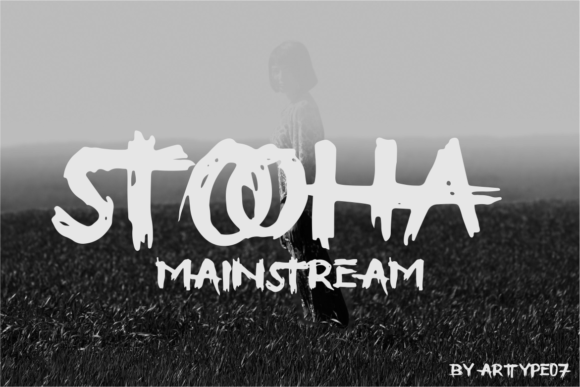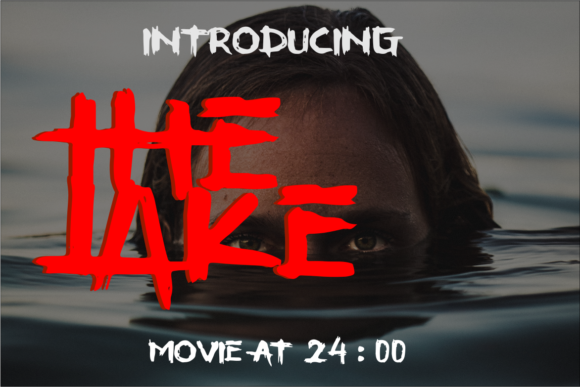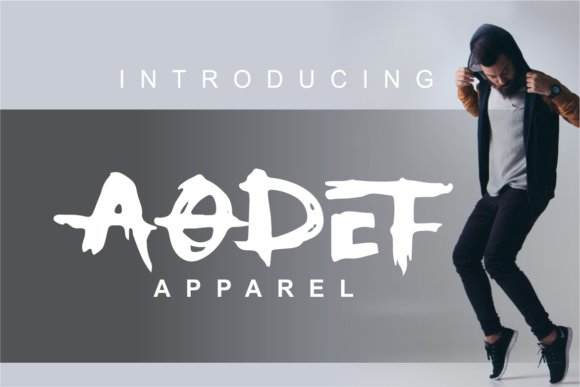
Stooha Font
Stooha is a playful blackletter font. Give your next projects a creative spark with this lovely font.
It will be the perfect choice for branding, logos, invitations, signatures, crafting and more.